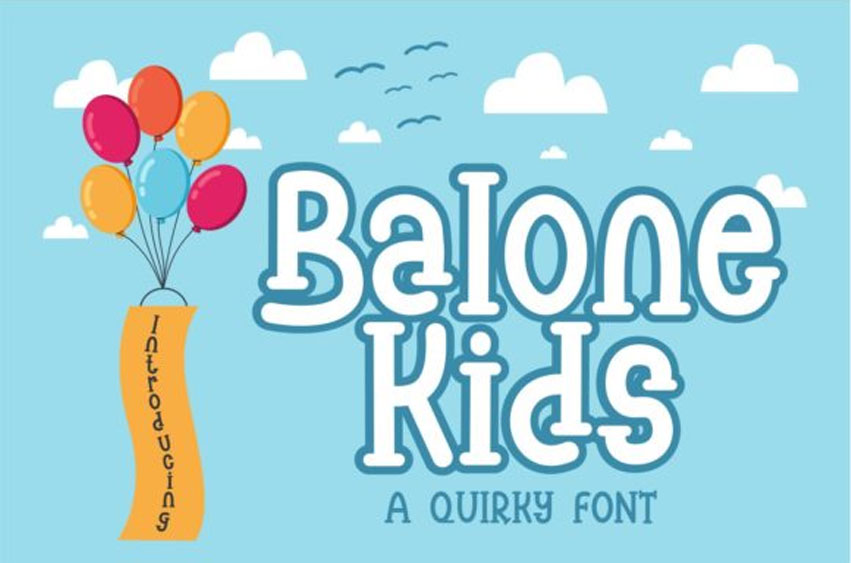
Balone Kids Font
Balone Kids Font is a friendly display font with a cute twist.
This font is perfect for children themed designs, especially when combined with bright colors.